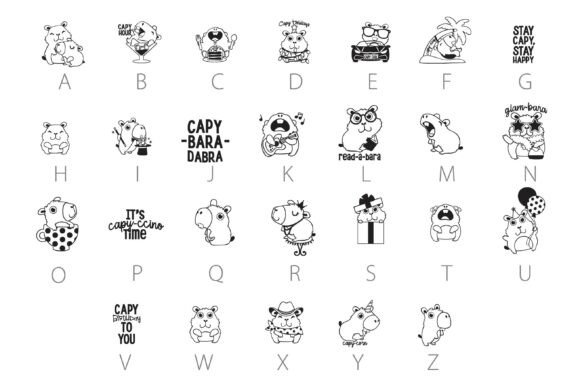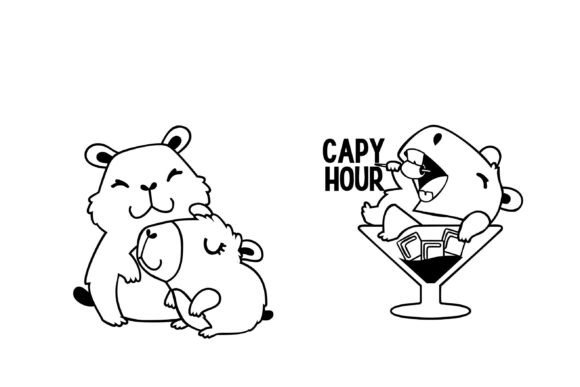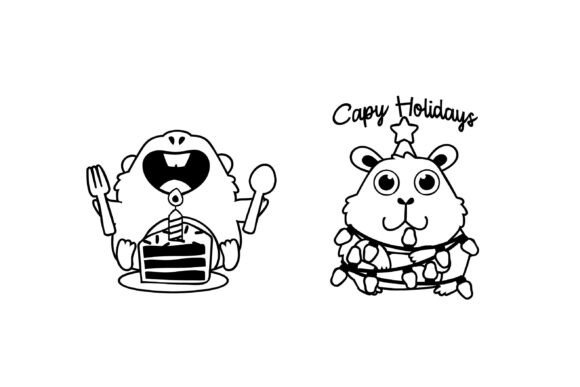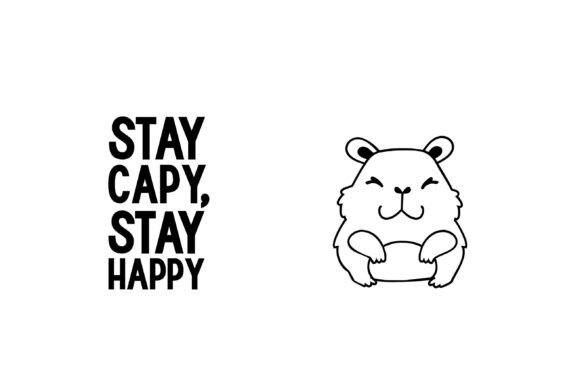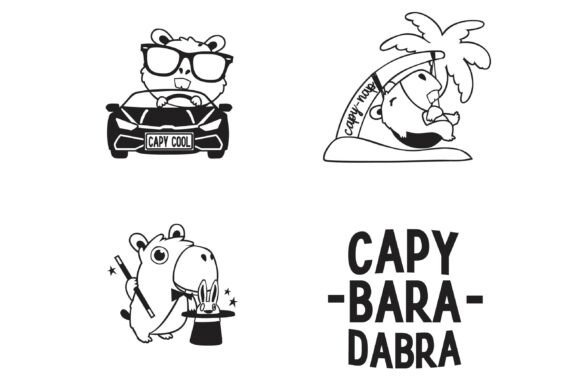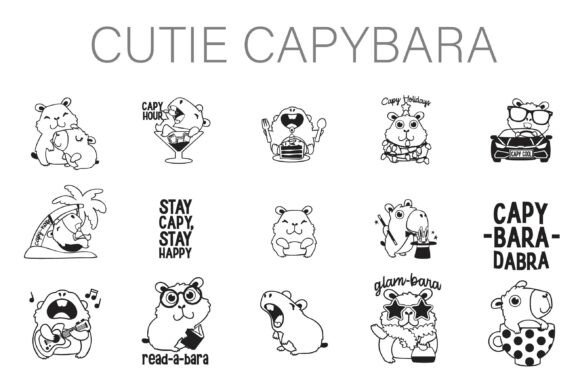
Cutie Capybara Dingbats Font: The Ultimate Whimsical Animal Mascot for Designers and Crafters
Are you tired of using the same old boring fonts and graphics in your designs? Look no further than the Cutie Capybara Dingbats Font, a charming collection of animal mascot dingbats that will add a touch of whimsy and humor to your projects. In this article, we’ll dive into the world of Cutie Capybara and explore how this delightful font can elevate your designs and bring a smile to your audience’s faces.
Meet Cutie Capybara: The World’s Friendliest Rodent
Cutie Capybara is a lovable and laid-back rodent who embodies the spirit of relaxation and fun. This endearing character is the brainchild of a talented designer who sought to create a mascot that would inspire joy and positivity in people’s lives. With its soothing presence and amusing antics, Cutie Capybara is the perfect companion for anyone looking to add a dash of personality to their designs.
A World of Relatable and Humorous Scenarios
What sets Cutie Capybara apart from other dingbat fonts is its incredible versatility. This charming collection features the world’s friendliest rodent in a wide range of relatable and humorous scenarios, including:
- Reading a book, perfect for book clubs, reading blogs, or educational resources
- Playing guitar, ideal for music-related projects, festivals, or concerts
- Driving a car, great for travel, transportation, or adventure-themed designs
- Lounging in a giant teacup, a sweet addition to tea party invitations, food blogs, or lifestyle magazines
Whether you’re designing social media graphics, custom digital planners, or boutique stationery, Cutie Capybara has got you covered. This delightful dingbat font is sure to bring a smile to your audience’s faces and make your projects stand out from the crowd.
The Perfect Choice for Independent Lifestyle Branding
As an independent designer or small business owner, you know how important it is to establish a strong brand identity. Cutie Capybara Dingbats Font is the perfect choice for independent lifestyle branding, offering a unique and recognizable visual language that will help you connect with your audience on a deeper level.
With its “zen-lifestyle” soul and expressive character design, Cutie Capybara embodies the carefree spirit of modern living. By incorporating this charming font into your branding, you’ll convey a sense of approachability, friendliness, and playfulness that will resonate with your target audience.
Boutique Stationery Design and Custom Digital Planner Stickers
For crafters and stationery enthusiasts, Cutie Capybara Dingbats Font is a dream come true. This adorable font can be used to create stunning boutique stationery designs, including greeting cards, invitations, and journal pages.
Additionally, Cutie Capybara’s versatile design makes it perfect for custom digital planner stickers. Add a touch of whimsy to your digital planners and make them stand out with these delightful dingbats.
High-Energy Social Media Overlays
In today’s fast-paced digital landscape, social media graphics need to be attention-grabbing and engaging. Cutie Capybara Dingbats Font is the perfect solution for creating high-energy social media overlays that will make your content shine.
From Facebook and Instagram to Twitter and Pinterest, Cutie Capybara’s charming designs will help you connect with your audience and drive engagement. Use these delightful dingbats to:
- Create eye-catching social media headers and banners
- Design engaging posts and stories
- Develop branded graphics and animations
In conclusion, Cutie Capybara Dingbats Font is a game-changer for designers and crafters looking to add a touch of whimsy and humor to their projects. With its relatable and humorous scenarios, versatile design, and “zen-lifestyle” soul, this charming font is the perfect choice for independent lifestyle branding, boutique stationery design, custom digital planner stickers, and high-energy social media overlays.